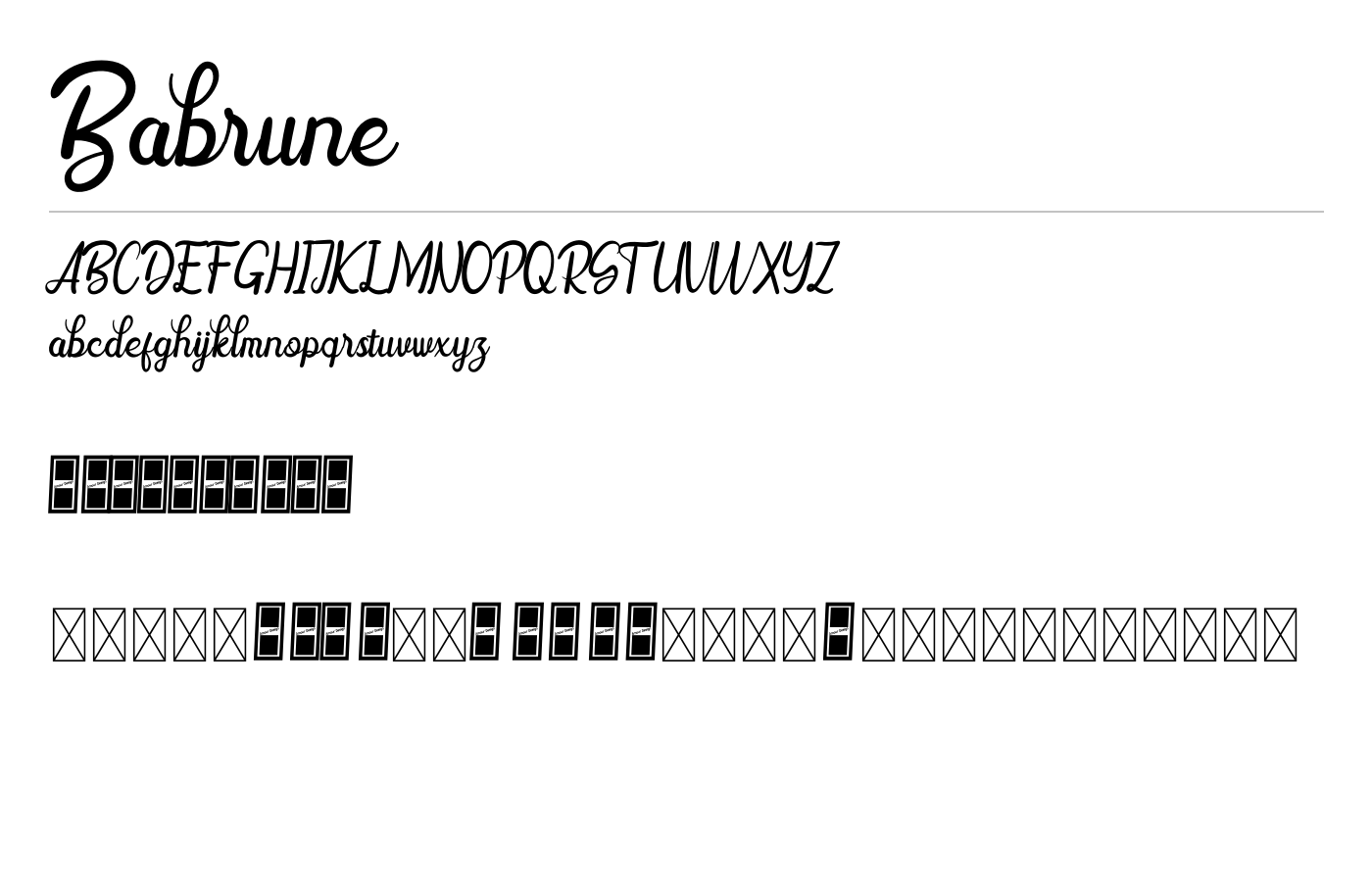
Babrune is a playful, handwritten script font with a smooth, flowing style that features thin, consistent strokes and elegant curves. Its tall, slightly narrow letterforms and unique character details give it a charming and casual feel, perfect for creative branding, invitations, and feminine or artisanal designs. This font works well for headlines, logos, and any project that aims to convey warmth and personal touch.
Babrune Font
About Babrune Font
| Font family | Babrune Font |
| Designer | Murozakul Akhsan |